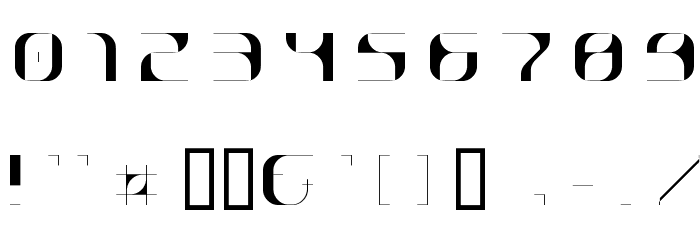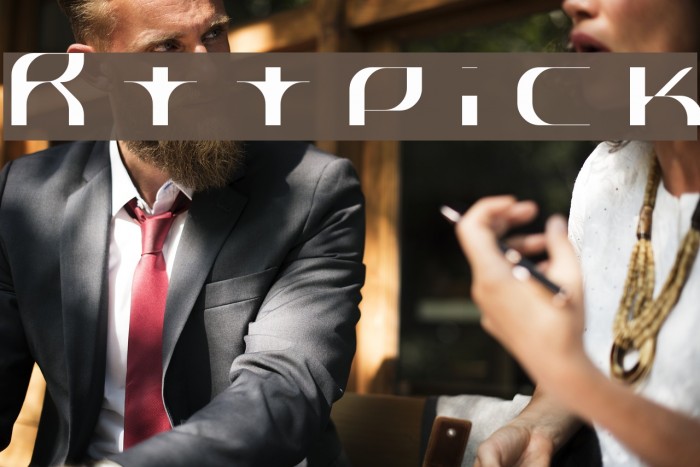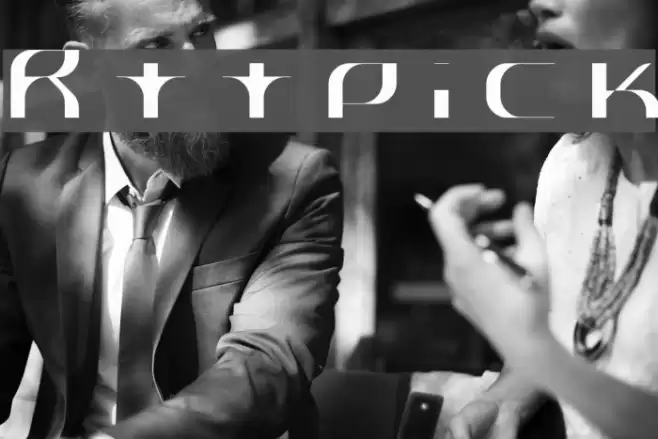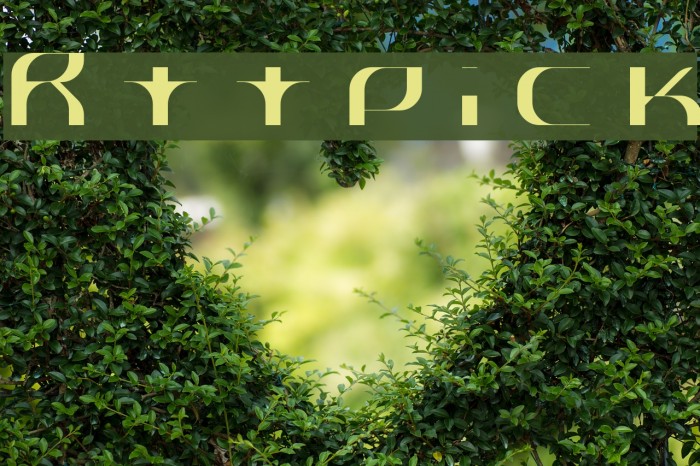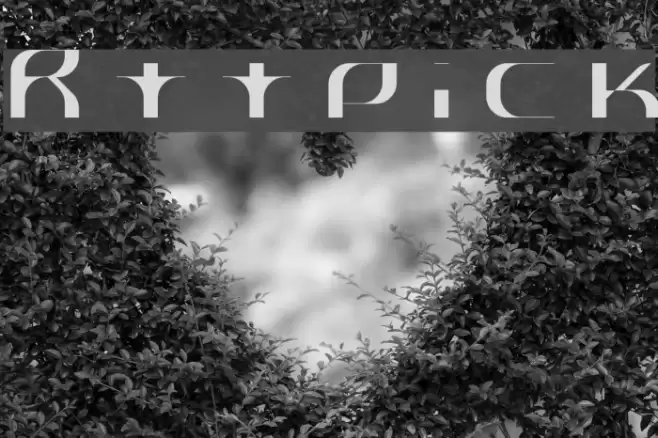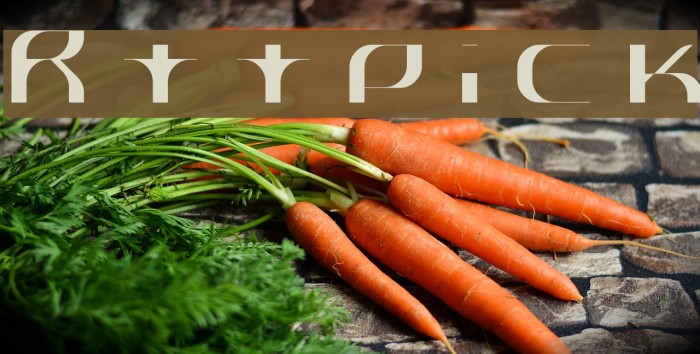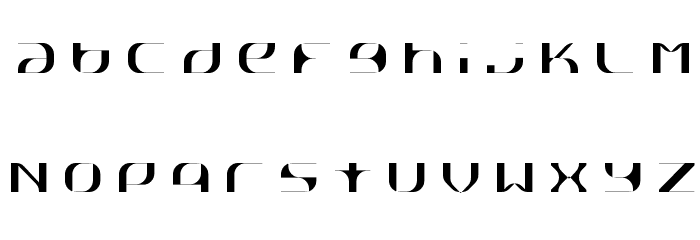
Råttpick Font
Råttpick Description
This font features a modern and futuristic design with a unique blend of geometric shapes and negative space. The characters are constructed with bold, angular lines and have a distinctive cut-out effect that creates a sense of movement and dynamism. The uppercase and lowercase letters maintain a consistent style, while the numerals and special characters complement the overall aesthetic. This font's innovative design makes it stand out, offering a fresh take on traditional letterforms.
| Proposed Projects | Ideal for technology branding, sci-fi movie posters, and innovative product packaging. |